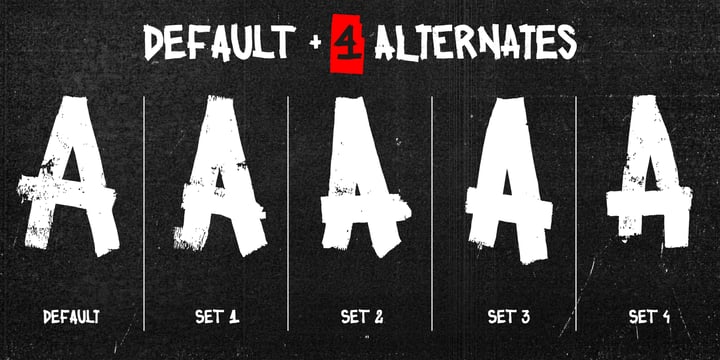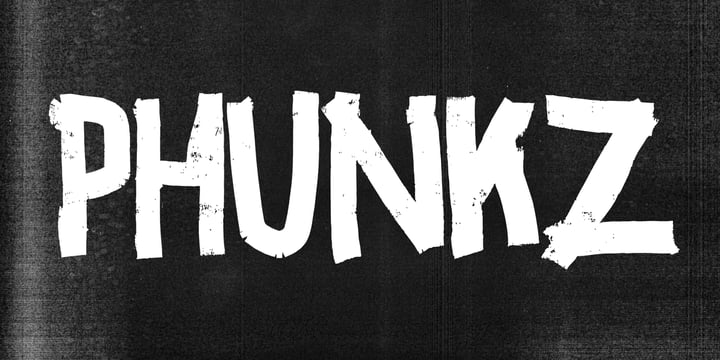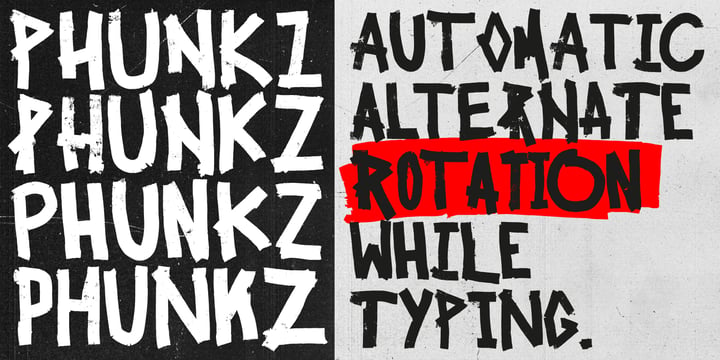
Tomek Kudlak
Tomek Kudlak (b. 1987) is a Polish graphic designer and printmaking enthusiast based in Warsaw. A graduate of the Strzemiński Academy of Fine Arts in Łódź, where he earned his master’s degree in Woodcut Printmaking, he draws inspiration from traditional printing techniques and the materiality of graphic art.
His design practice bridges analog sensibility with contemporary visual communication. Kudlak is best known for his record sleeve designs for Polish musicians - many of which have been nominated and awarded in “Album Cover of the Year” competitions.
He is the founder of Obiekt Studio, a Warsaw-based creative studio - focused on branding, visual communication, and art direction. His approach to typography reflects the tactile logic of printmaking - precise, structured, and expressive in form.